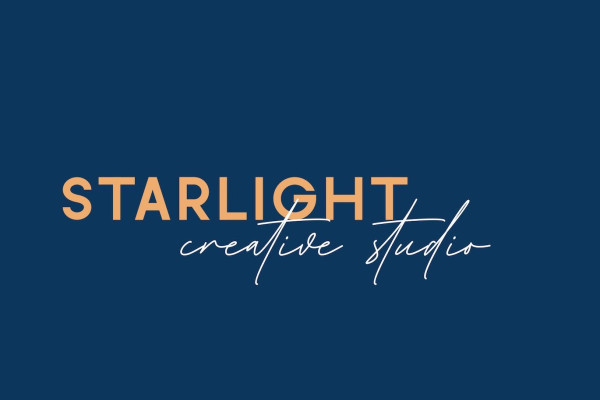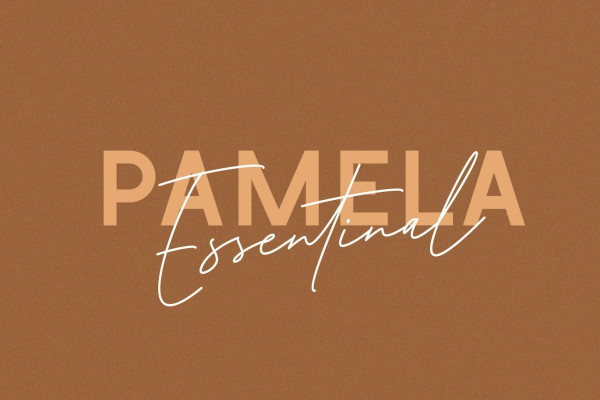
British Virgin Font
British Virgin Font Duo, by rantautype. A simple, modern and minimalist sans-serif typeface paired with classy handwritten font. Britishvirgin brings a touch of casual elegance and sophistication to branding.
British virgin Font is a beautiful choice for any creative endeavor, creating elegant, chic, lifestyle design such as logos, title, cover, branding, display and magazine, and more. Let’s we make a beautiful work with us.